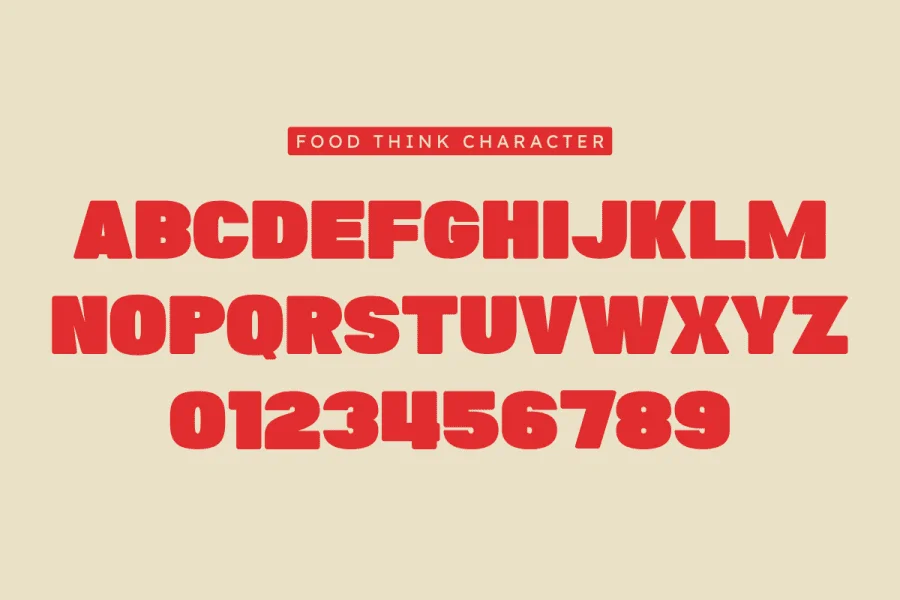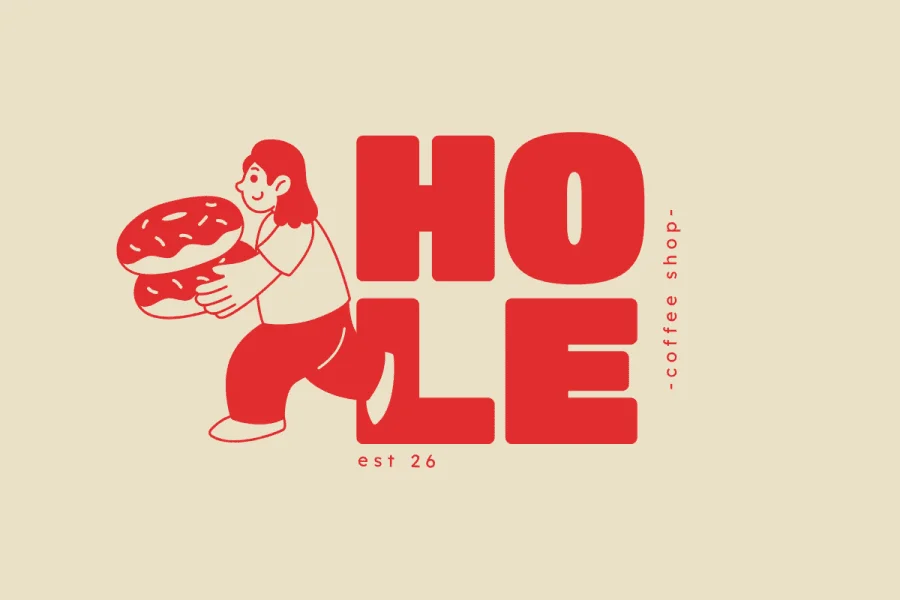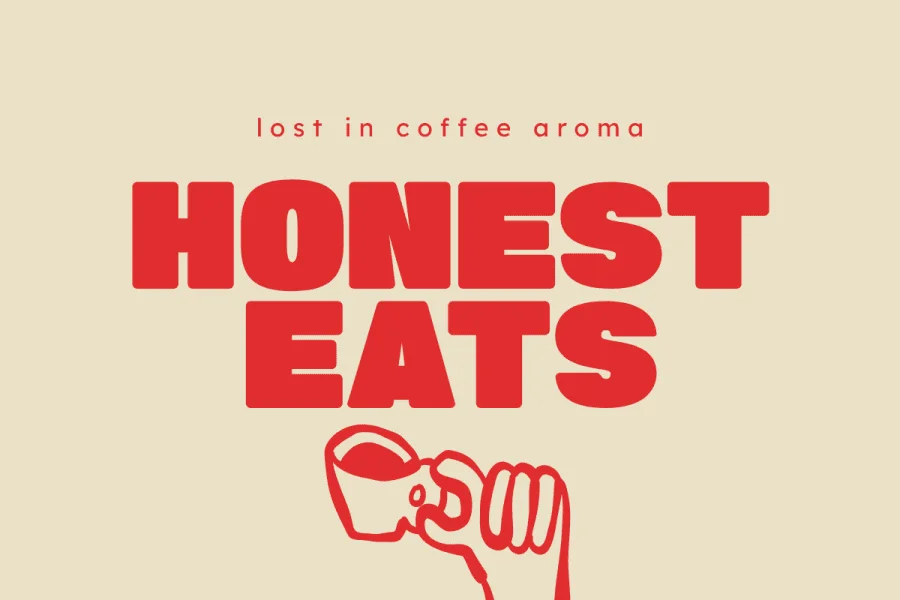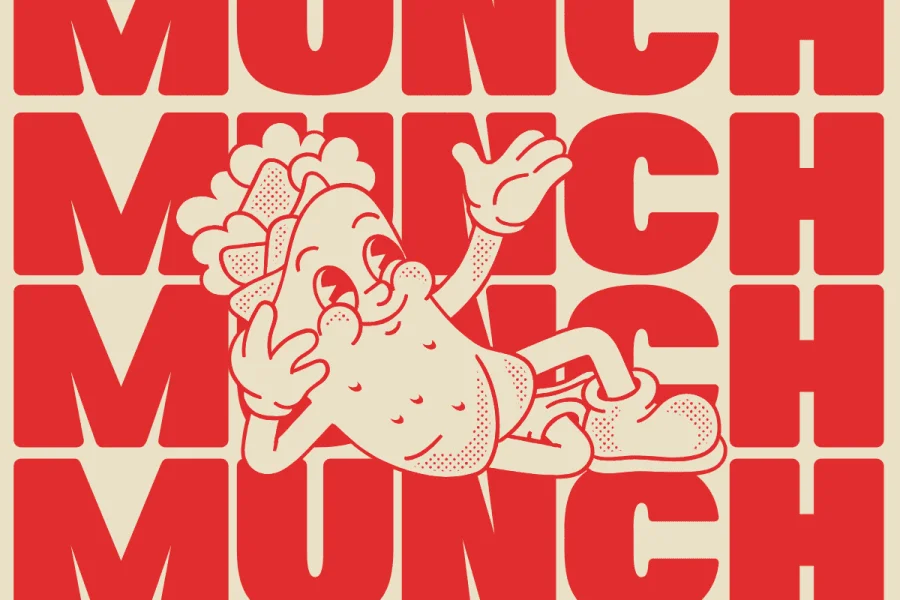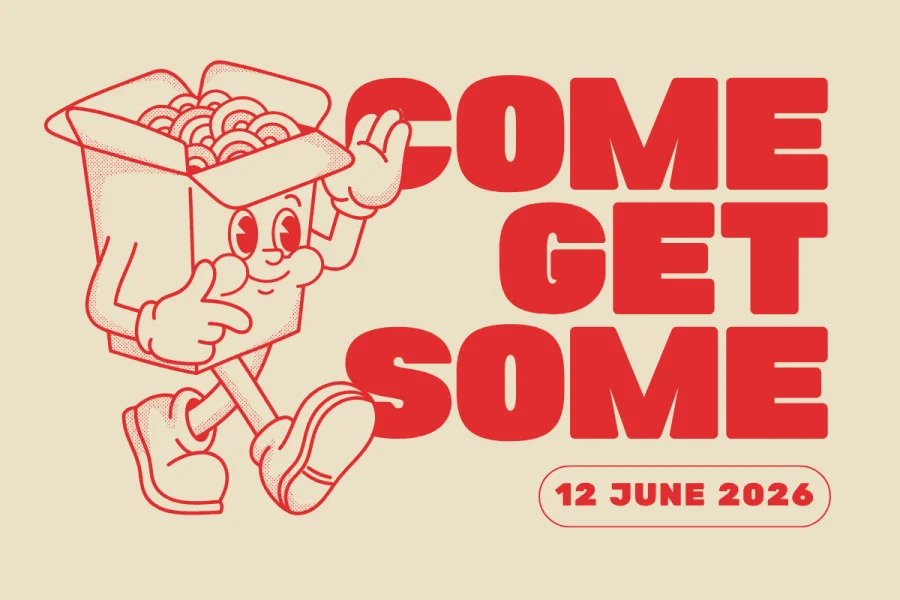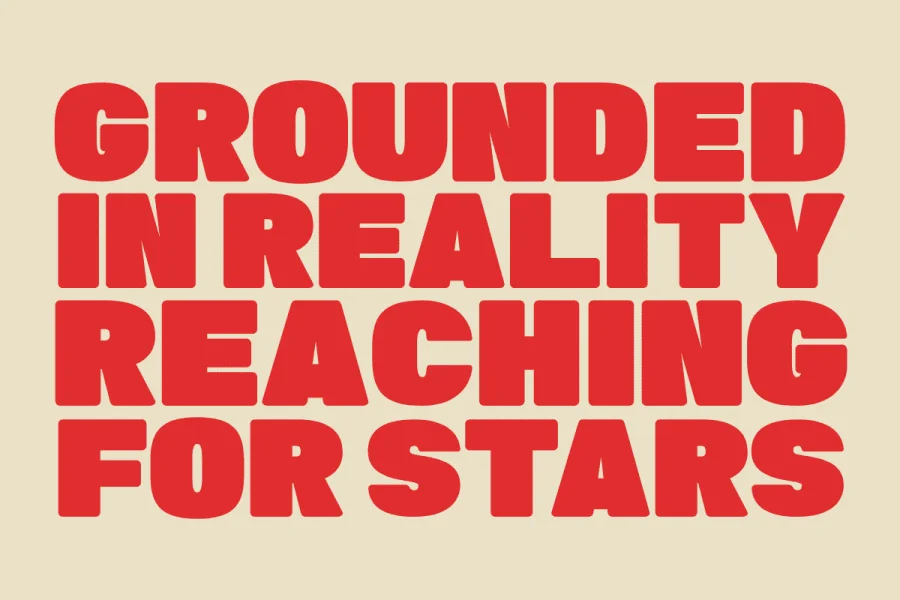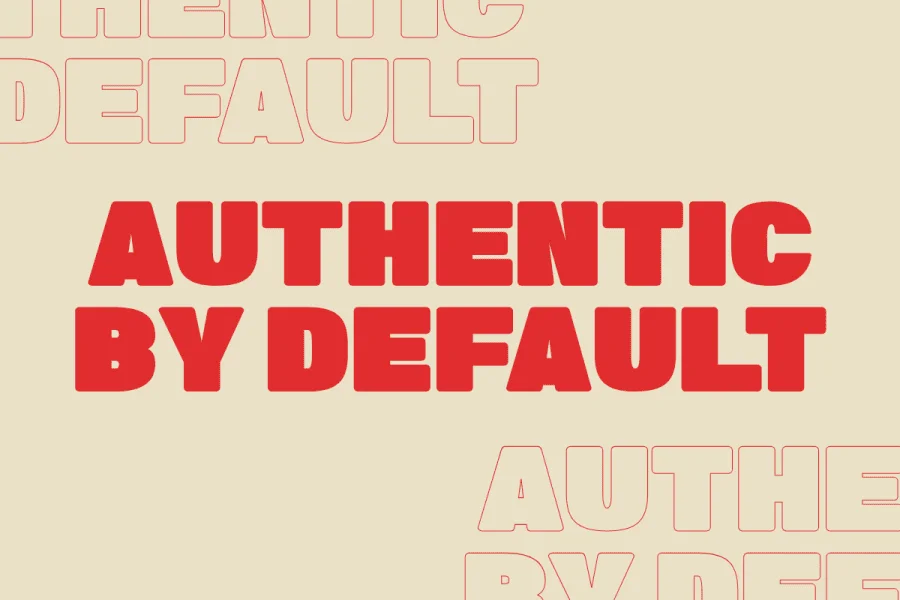
Food Think is a bold retro chunky sans serif font uniquely designed to deliver a playful warmth and high-impact vintage aesthetic to your modern creative projects. Featuring a robust, heavy weight alignment and friendly rounded geometric contours, this typeface beautifully bridges the gap between classic 70s nostalgia and contemporary commercial design trends. It stands out as an exceptional choice for professional graphic designers, independent clothing brands, custom apparel makers, passionate craft lovers, and Print on Demand (POD) entrepreneurs looking to create high-converting merchandise items. Whether you are building an eye-catching food brand identity, designing trendy restaurant t-shirt lines, customizing unique packaging layouts, or producing striking social media posters, Food Think ensures maximum readability and a distinct professional edge. Its ultra-clean vector outlines guarantee full technical compatibility with popular craft cutting software and digital vinyl plotters like Cricut and Silhouette, offering a flawless, hassle-free weeding experience for personalized stickers, mugs, and DIY craft projects. Elevate your commercial branding toolkits and artistic design portfolios with the inviting, powerful, and versatile character of the Food Think typeface.